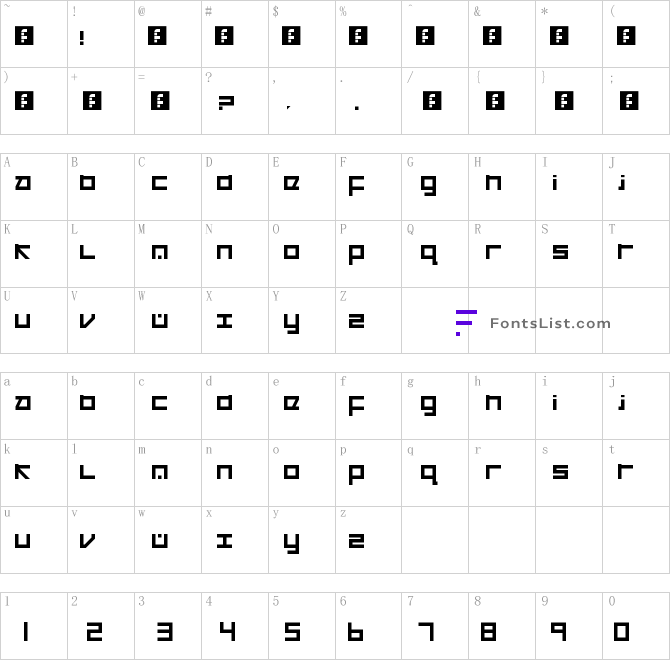
- Font Name:Cancranacancarnaca
Cancranacancarnaca-Regular.ttf is a very beautiful artistic font, Cancranacancarnaca-Regular.ttf is widely used in the design and printing of various books and pictures,Cancranacancarnaca-Regular.ttf has a strong visual impact,Cancranacancarnaca-Regular.ttf is a commonly used font in newspapers, magazines and books, and is used in posters, e-commerce Poster design, store design, logo design, font design and other fields.Cancranacancarnaca-Regular.